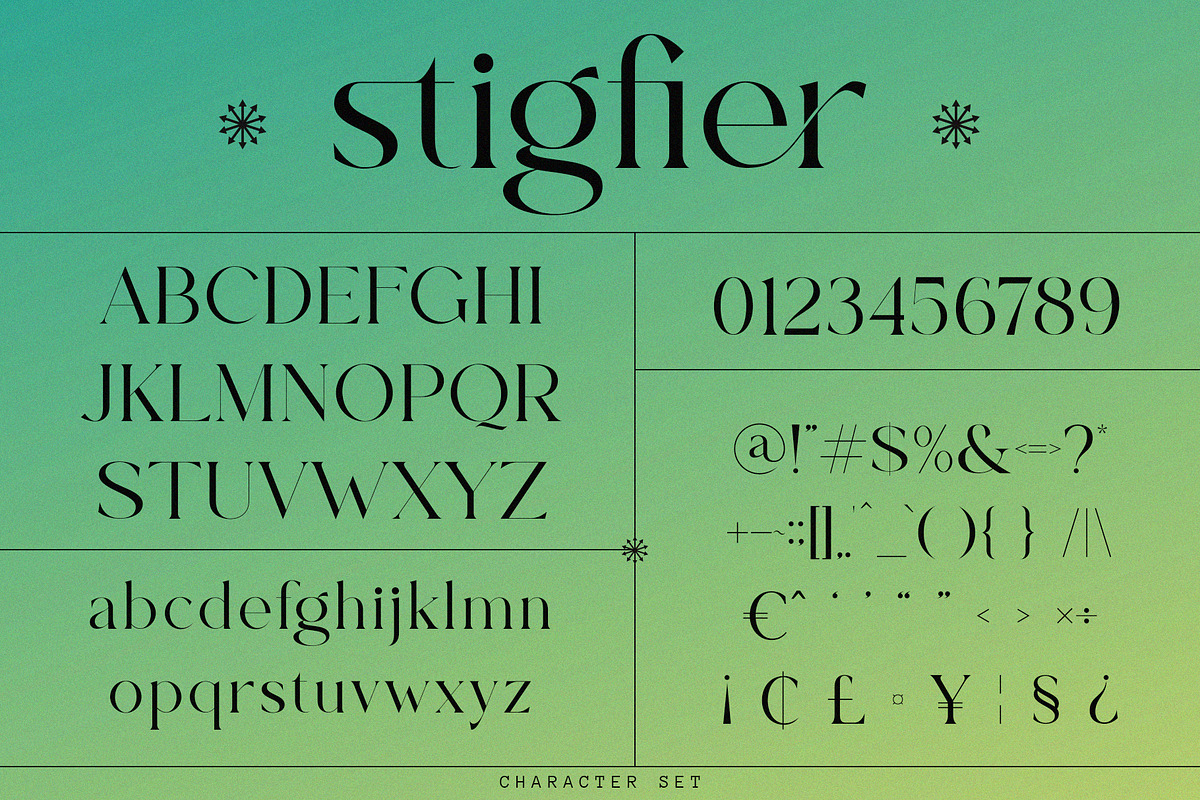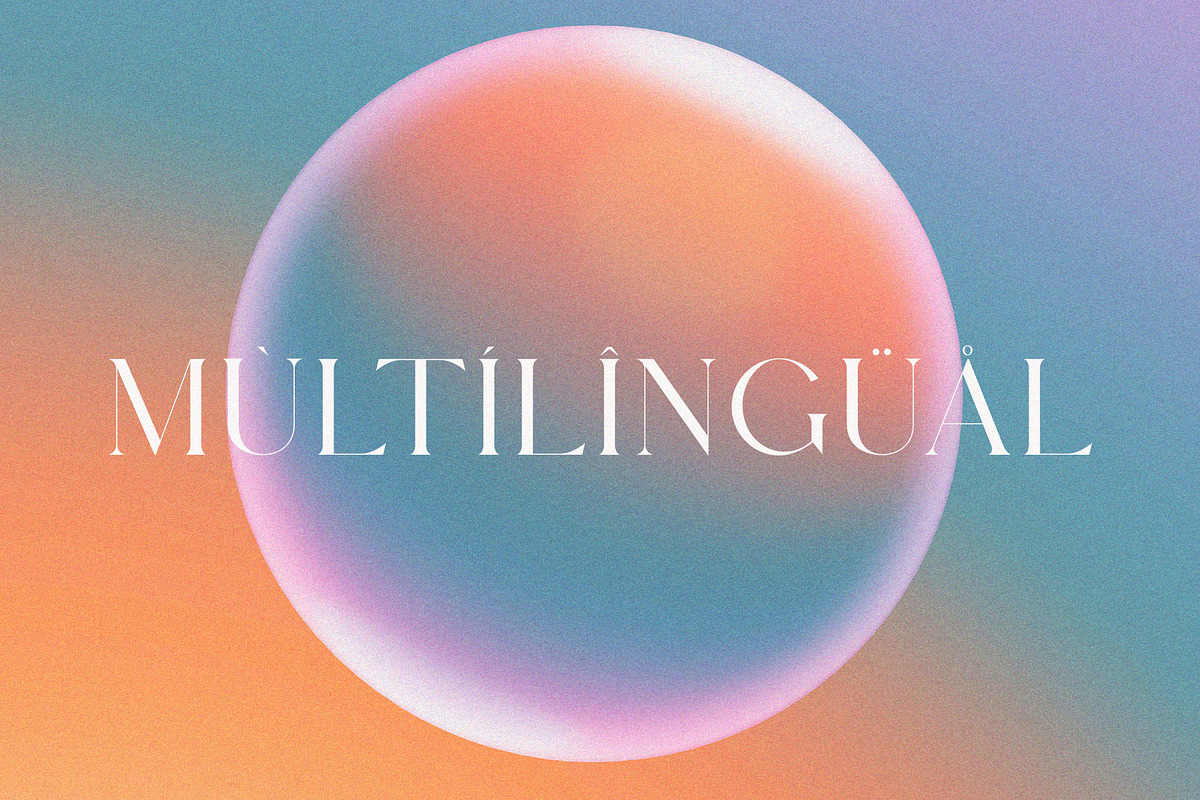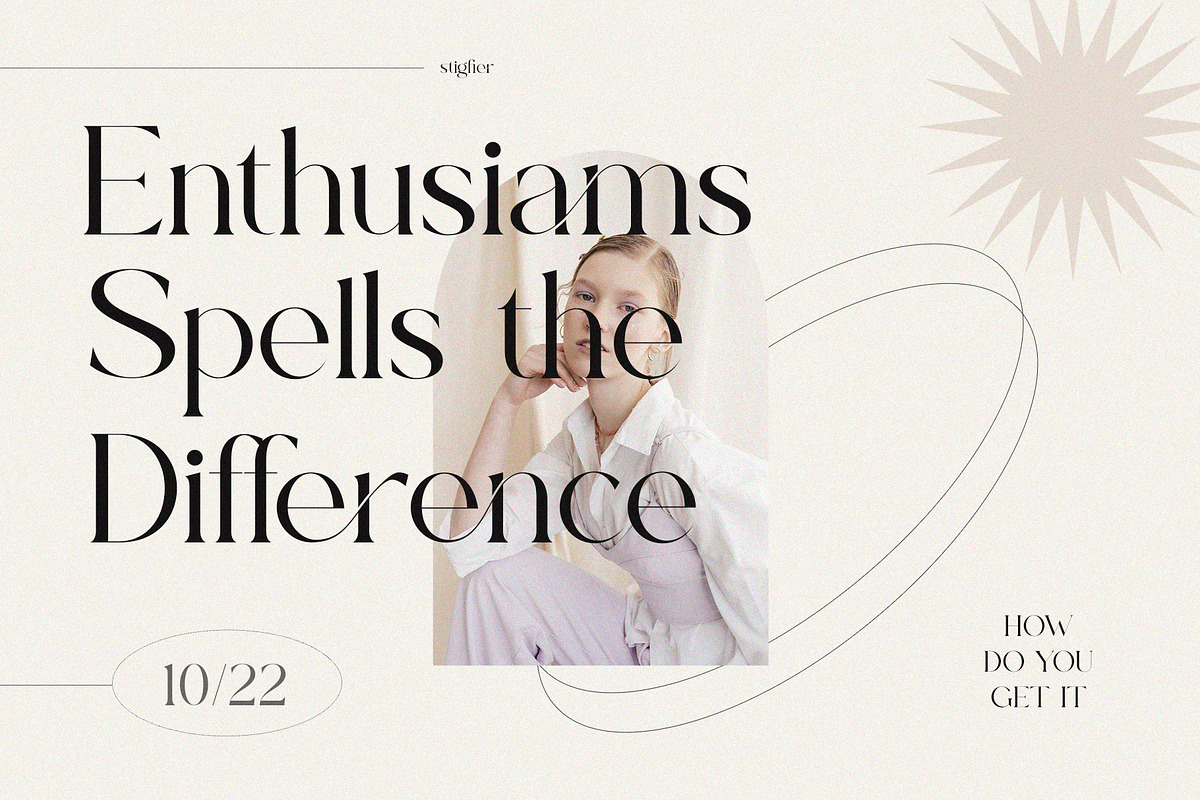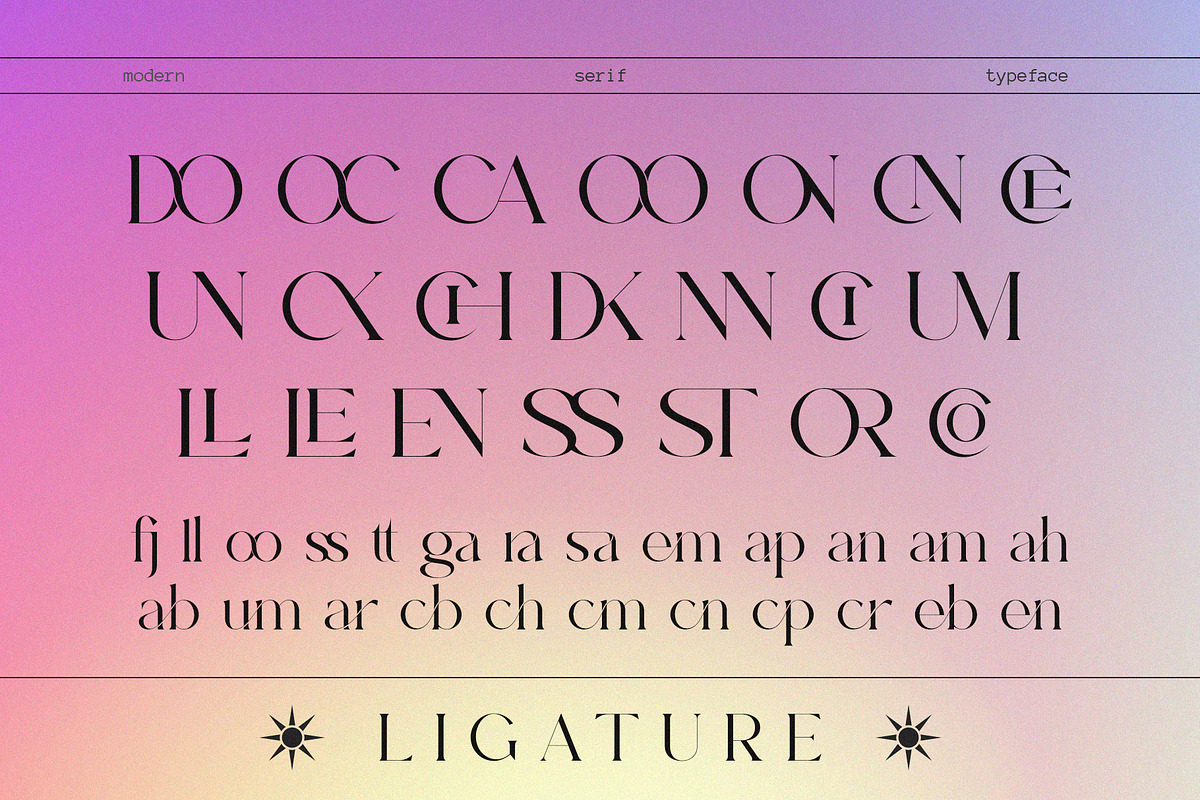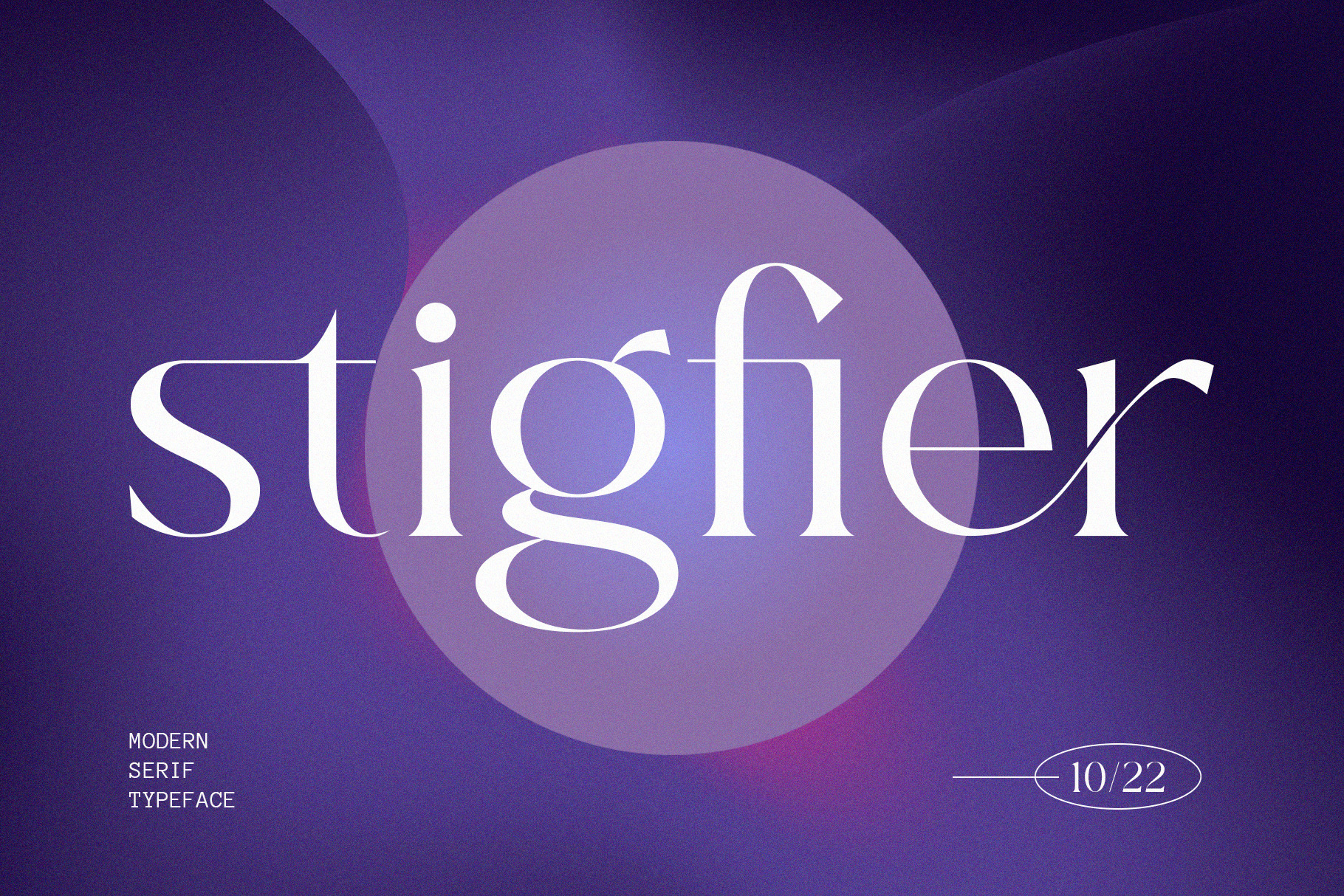
Stigfier Modern Serif Typeface
Introducing 'Stigfier' Font:
Introducing Stigfier, a cool and modern serif font that serves as an incredible asset to your font library. With its versatile appeal, Stigfier has the potential to elevate any creation, regardless of the topic or design project. Additionally, this font is PUA encoded, ensuring easy access to all the glyphs and ligatures, enhancing your creative flexibility. Elevate your designs with the stylish and contemporary aesthetic of Stigfier.
Ideal for:
- Modern Designs
- Beauty and Fashion
- Advertising Campaigns
- Social Media Designs
- Elegant Creations
- Ready for Creative Expression
- Immaculately Crafted Letters